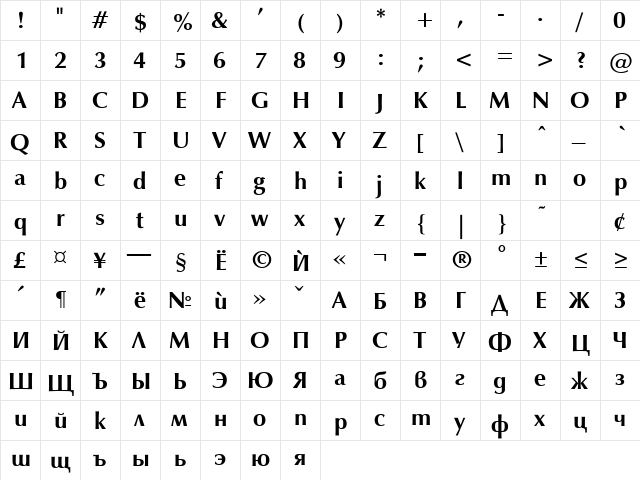
OpalB Bold
Design Context for OpalB Typeface
OpalB is a composed and adaptable typeface that performs quietly and consistently across a wide range of design contexts. Its bold stroke weight gives it real presence on the page.